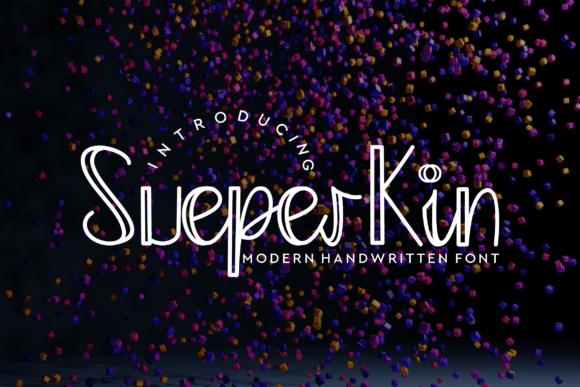
Step into the enchanting realm of Sueperkin, a script font that dances across your designs with a mischievous charm. Its playful strokes and youthful energy bring an infectious spark to any project, making it the perfect choice for those seeking an unforgettable font experience.
With Sueperkin, your imagination takes center stage. Its versatile nature makes it a masterful chameleon, effortlessly adapting to any design aesthetic. Whether you seek a touch of whimsy for your signature, a dash of playfulness for your stationery, or a splash of vibrancy for your logo, Sueperkin rises to the occasion with effortless grace.
Picture the enchantment of Sueperkin adorning your wedding invitations, adding a touch of magic to your special day. Its flowing curves and whimsical details will whisper sweet nothings to your guests, creating a truly unforgettable experience.
Unleash your inner storyteller with Sueperkin, the perfect font for captivating typography quotes. Its expressive strokes will breathe life into your words, inviting readers to immerse themselves in your tales and revel in the beauty of language.
Sueperkin's versatility knows no bounds. It effortlessly graces magazine and book covers, adding a touch of intrigue and sophistication. Its presence on website headers demands attention, captivating visitors with its playful charm. Even on clothing and branding designs, Sueperkin leaves an indelible mark, creating a unique and memorable visual identity.
From the delicate intricacies of packaging design to the bold statements of posters, Sueperkin is your artistic partner, transforming ordinary designs into extraordinary expressions of creativity. Embrace the boundless possibilities of this remarkable font and watch your projects come alive with a touch of magic.